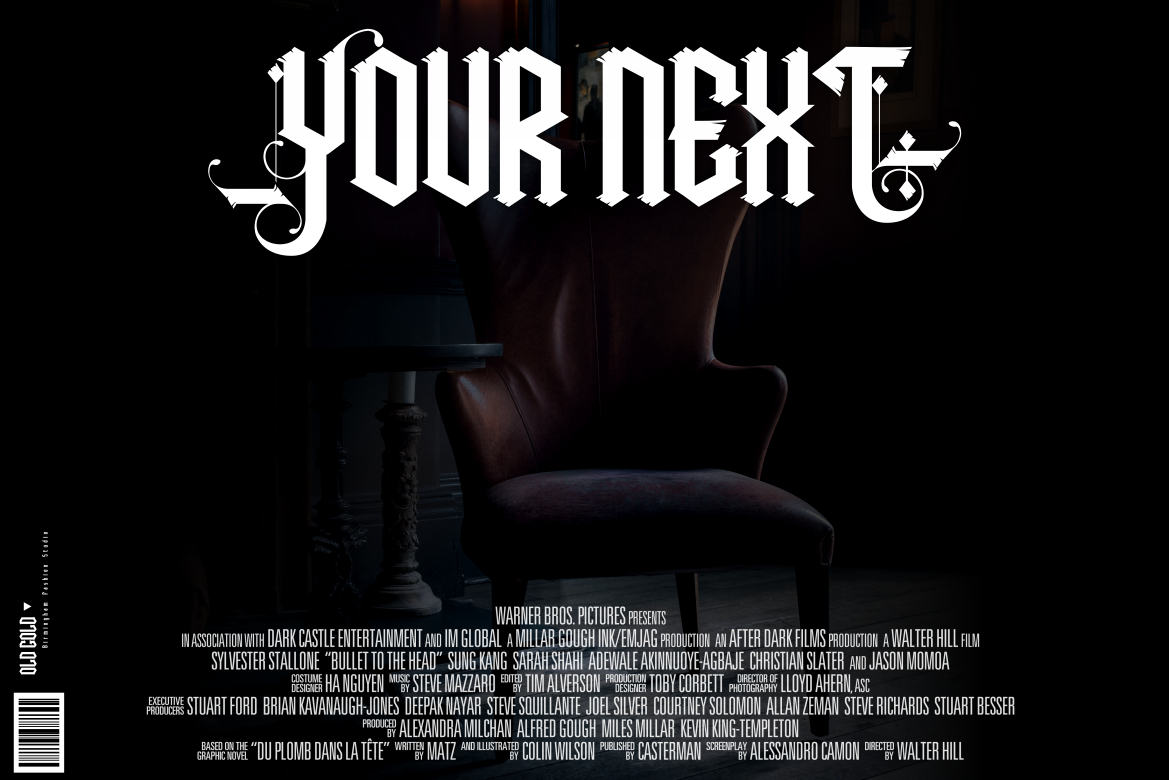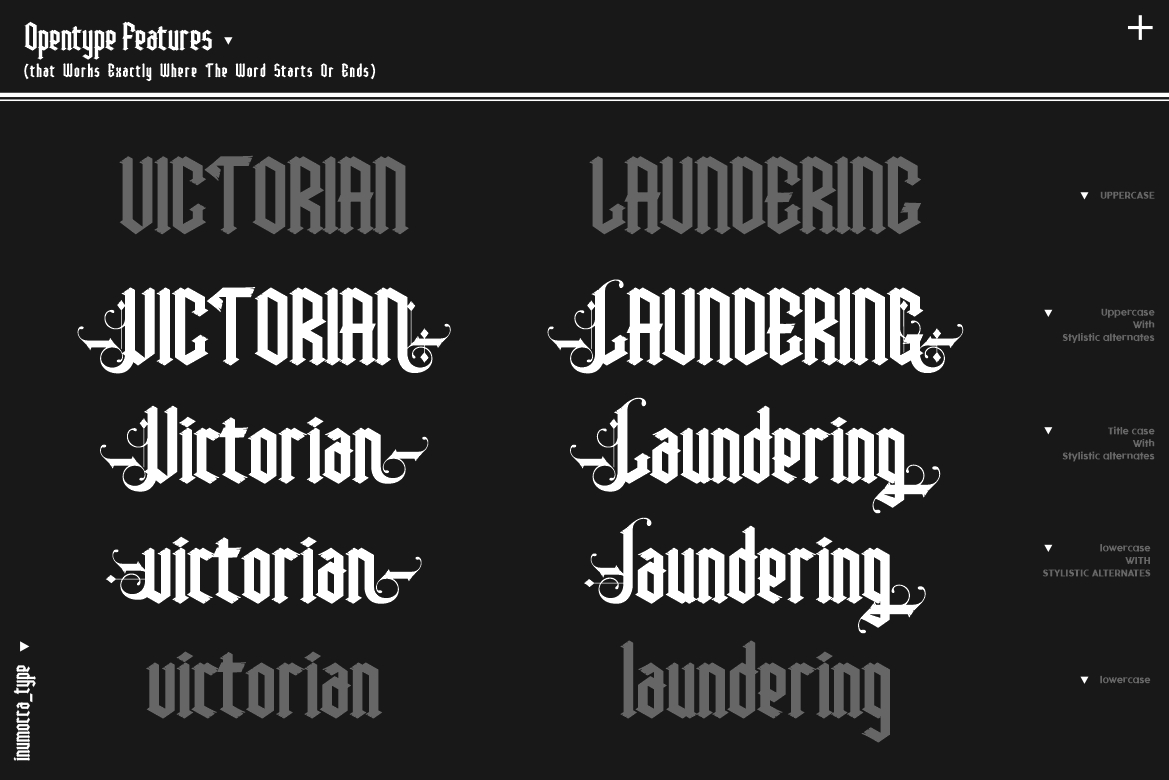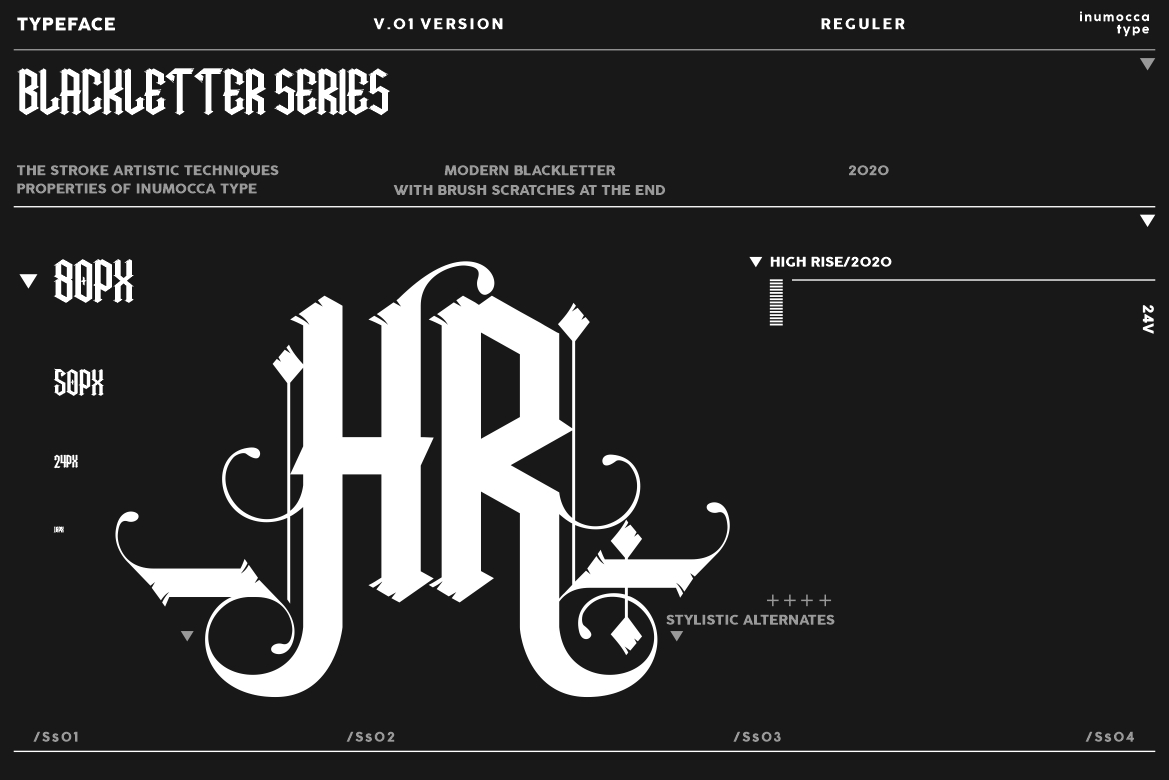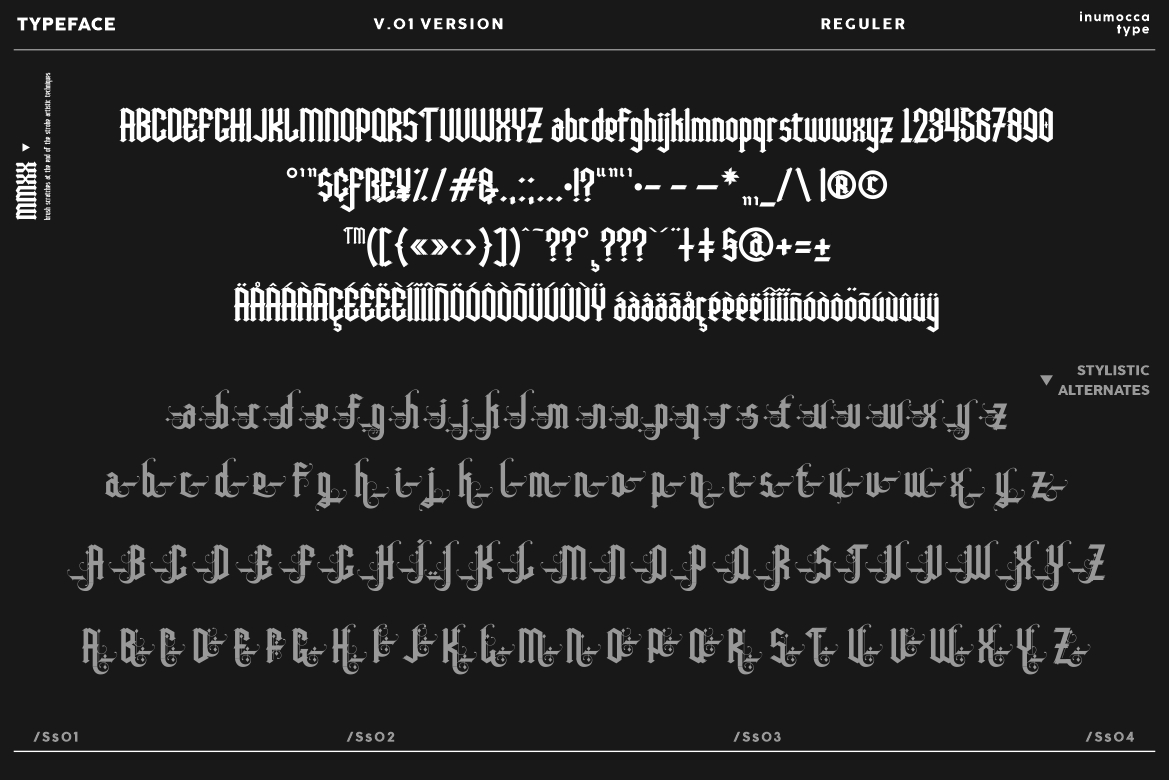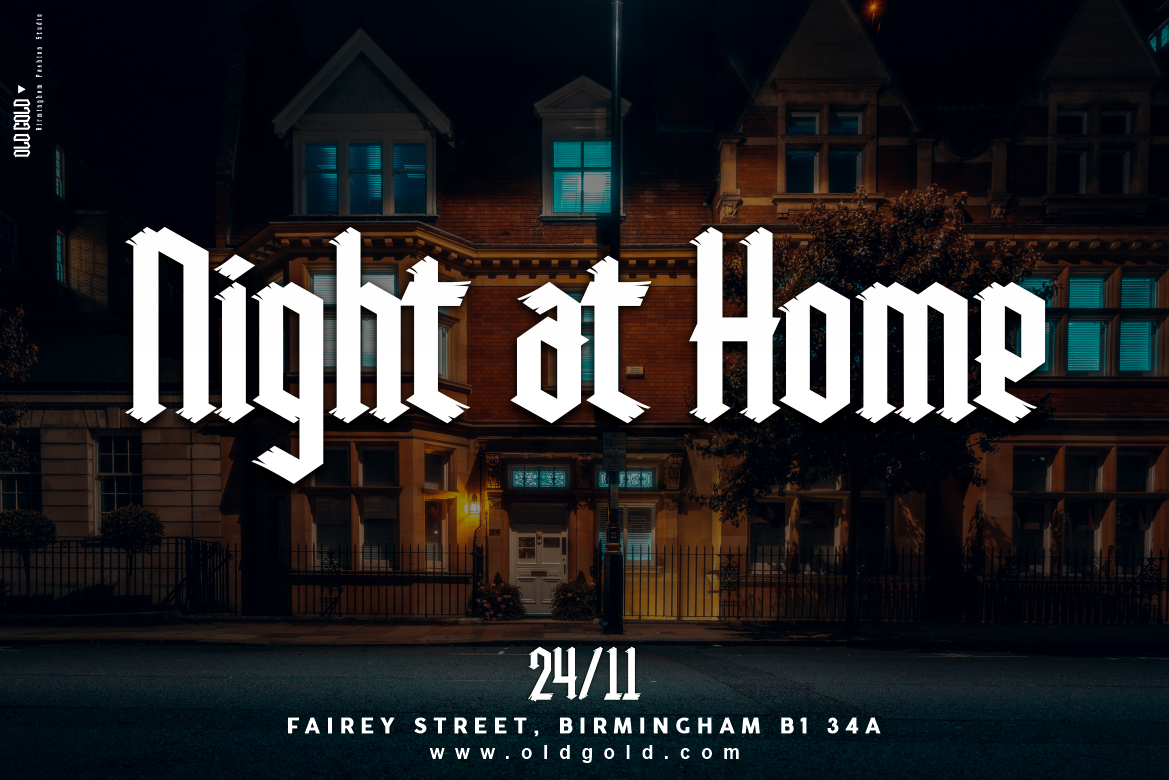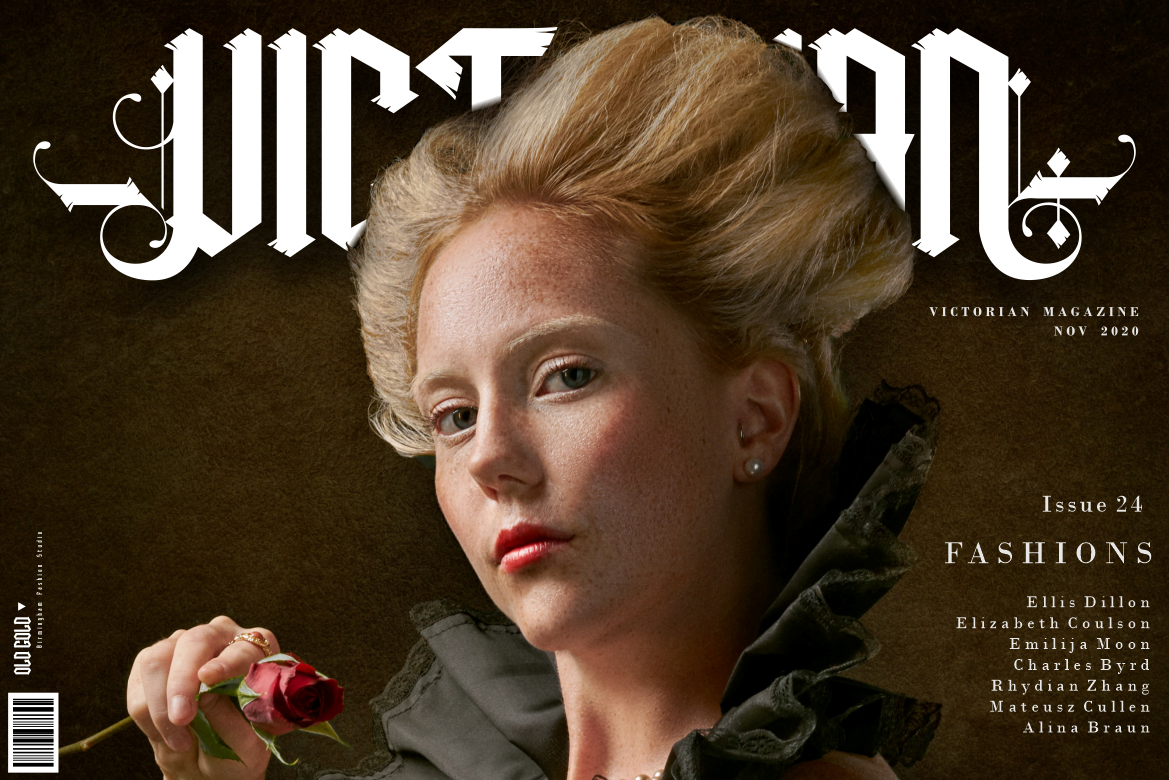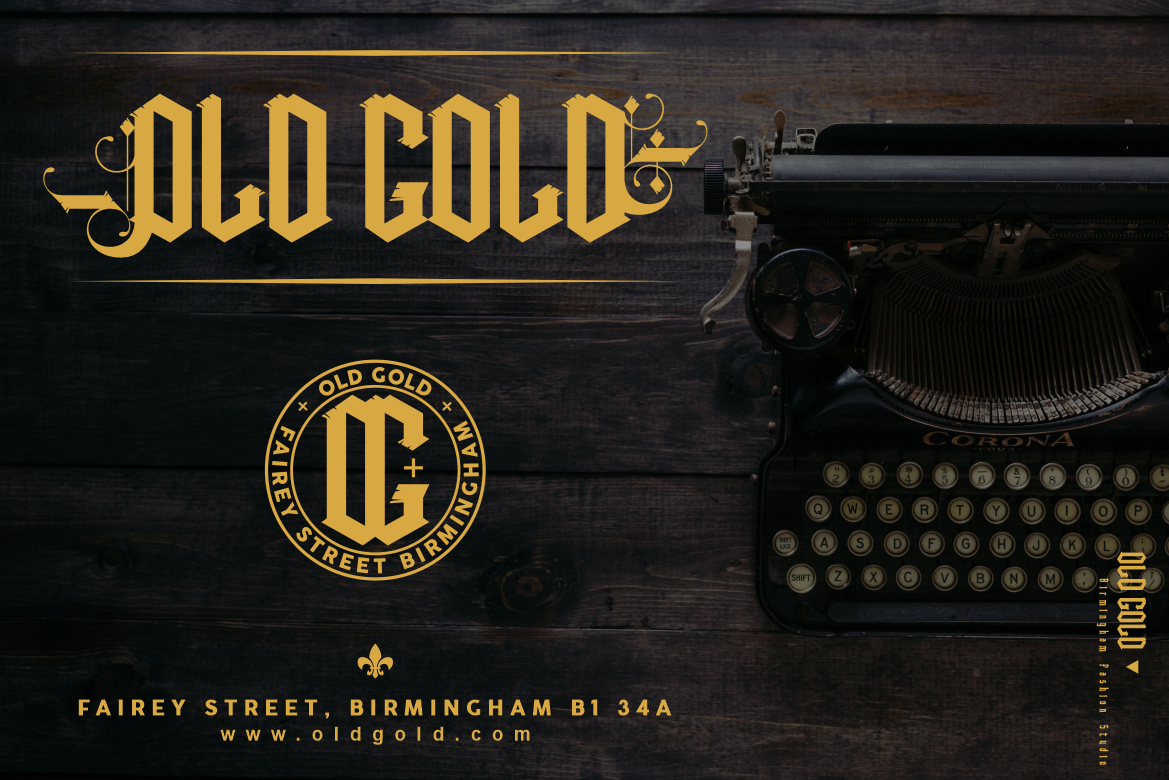
High Rise Font
About High Rise Font
High Rise is a bold and incredibly unique blackletter font. This original look will appeal to a wide range of crafty ideas, from letterheads and titles, to stationery.